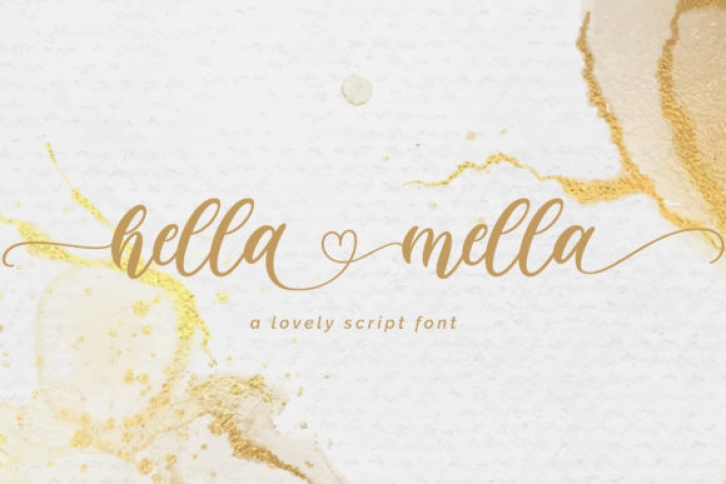
Hella Mella is a lovely script font. Fall in love with its authentic feel and use it to create gorgeous wedding invitations, beautiful stationary art, eye-catching social media posts, and cute greeting cards. This font is PUA encoded which means you can access all of the glyphs and swashes with ease! It features a varying baseline, smooth lines, gorgeous glyphs and stunning alternates.